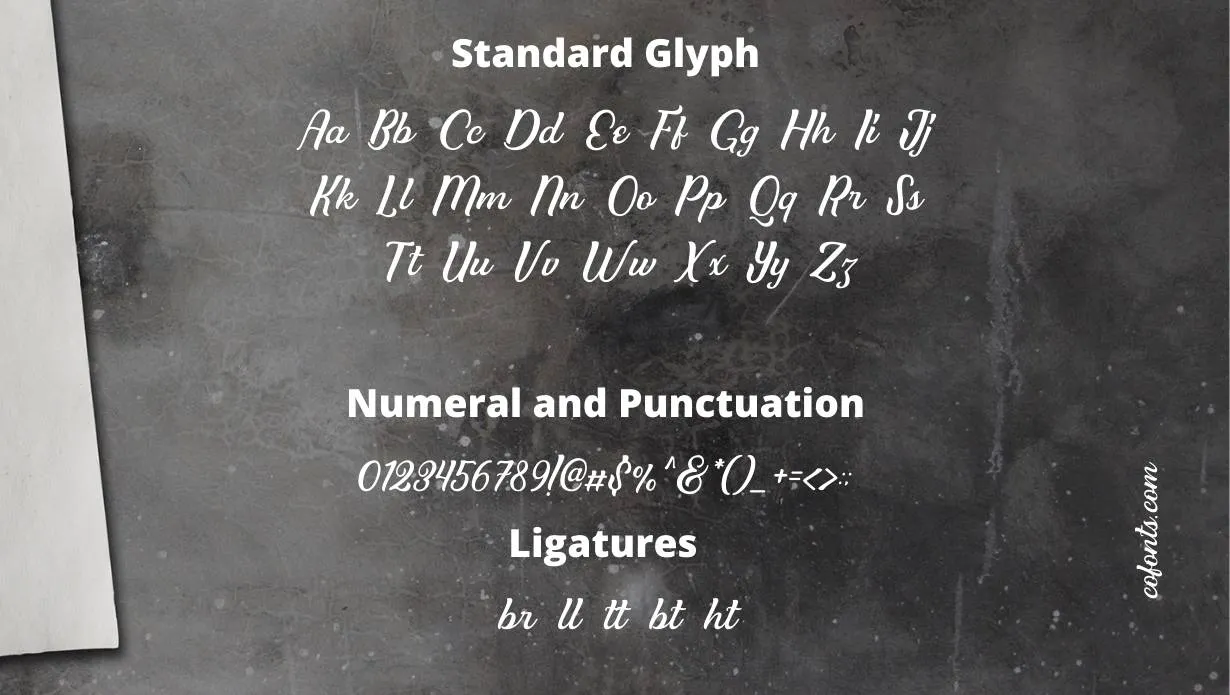
Clarkson Font Free Download
About Clarkson Font
Clarkson Font is a stunning new typeface style with an advanced and beautiful design. It belongs to the script typeface family and features calligraphy letterforms. This font was created by the renowned graphic designer Adam Fathony, who drew inspiration from brush textures to develop a unique font showcasing both characteristics.